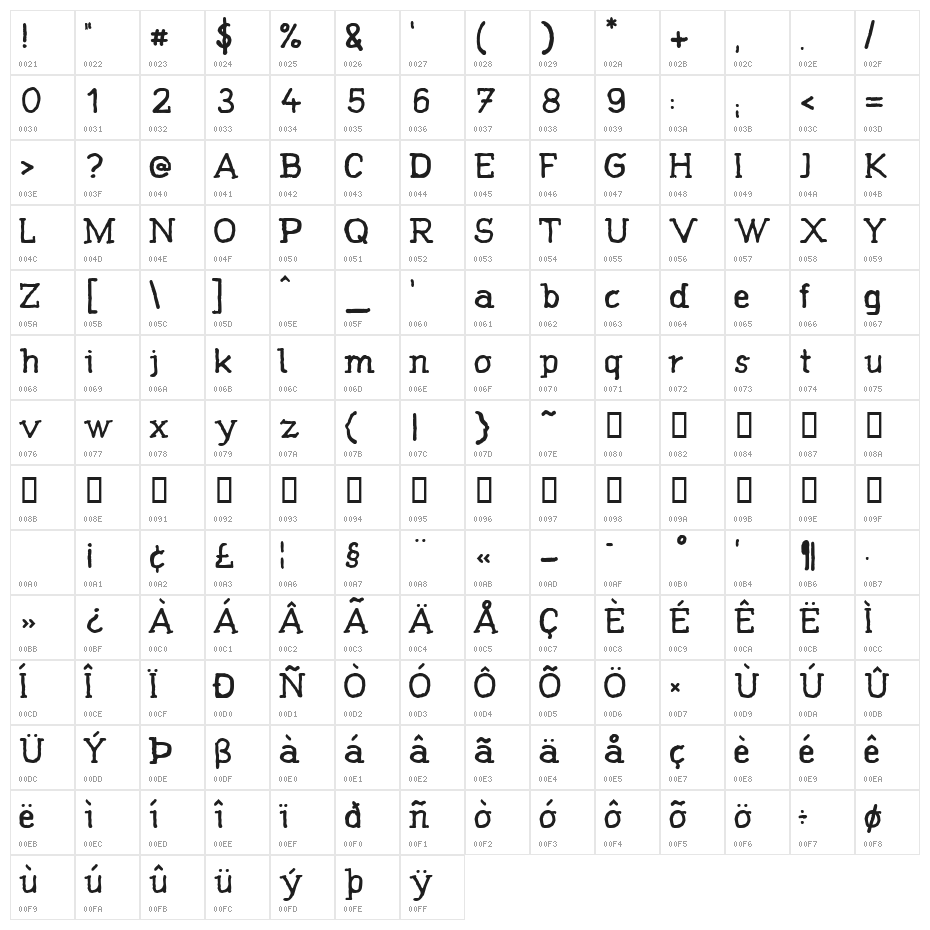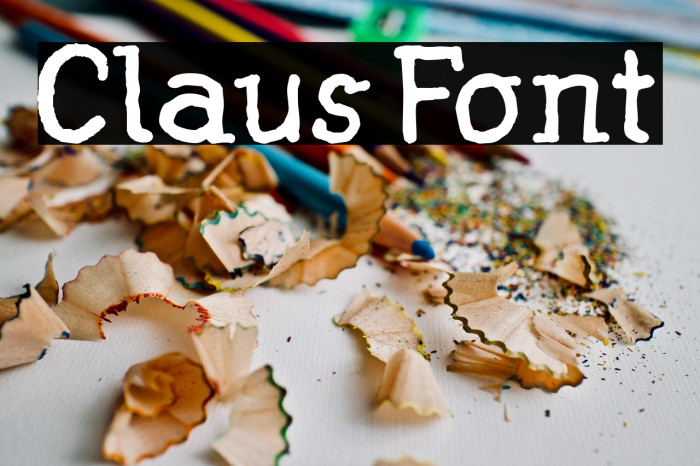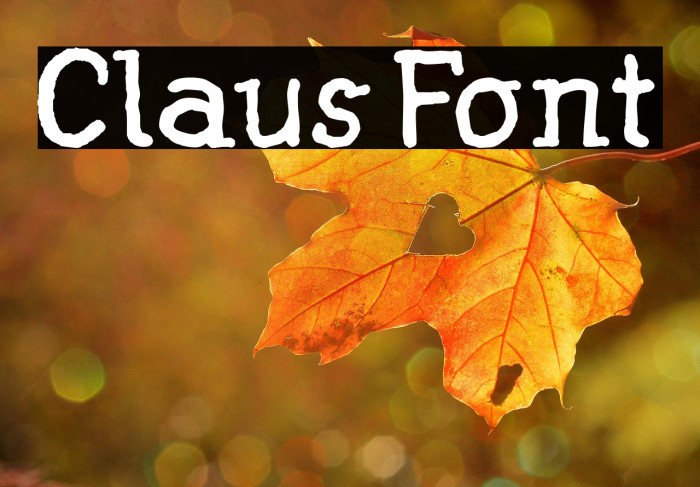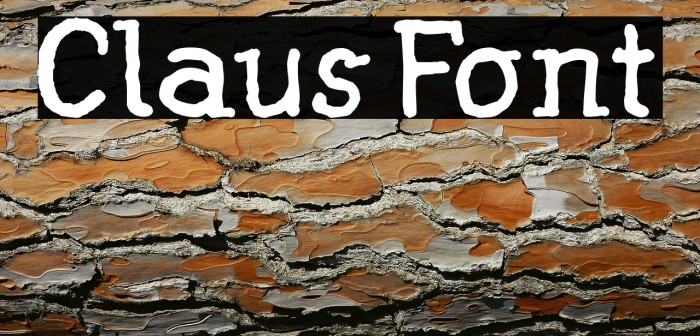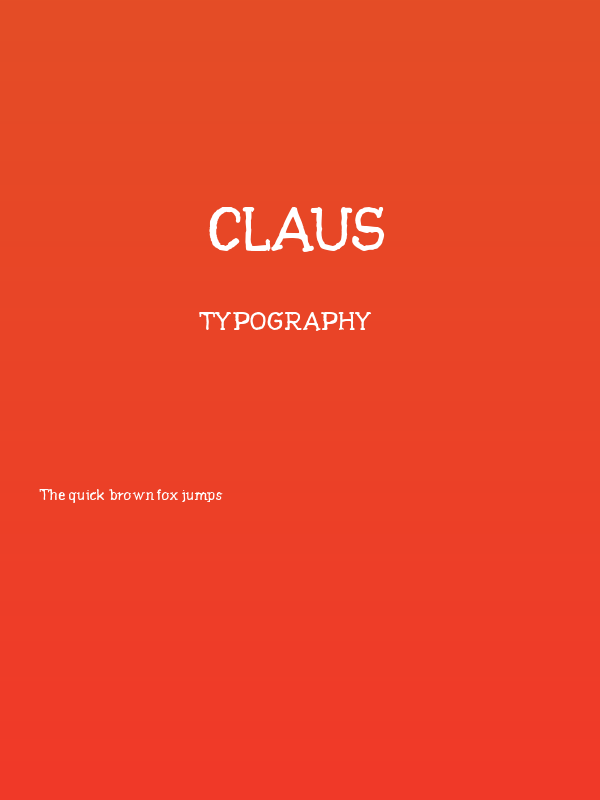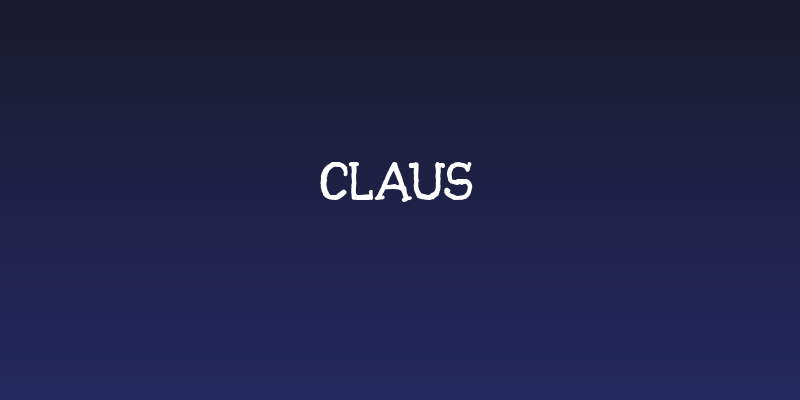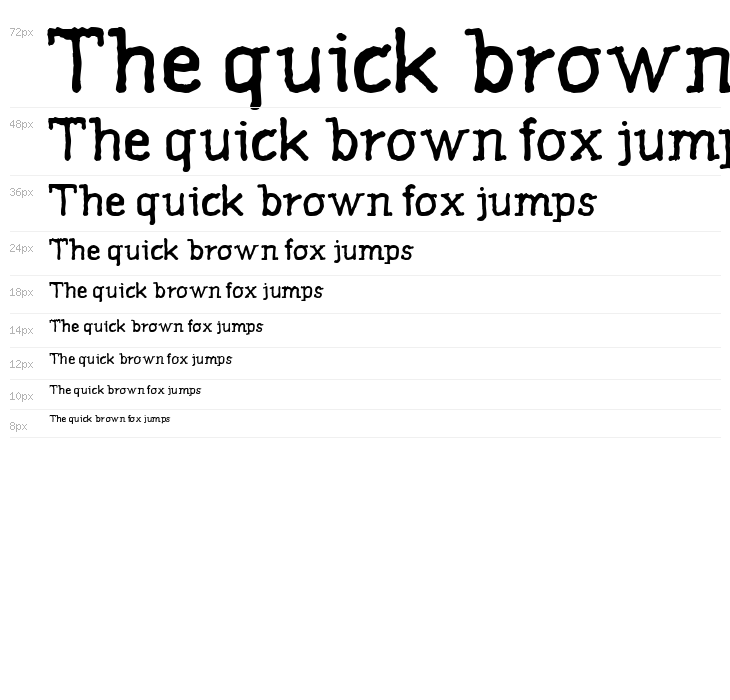
Claus Font
Claus Description
This font features a rugged, hand-drawn style with uneven edges and a playful, organic feel. The uppercase letters are bold and slightly irregular, giving a sense of spontaneity and creativity. The lowercase letters maintain this hand-crafted aesthetic, with some characters having unique quirks that add to the font's charm. Numbers and special characters follow the same design principles, ensuring consistency throughout. The overall appearance is reminiscent of a vintage or rustic theme, making it suitable for projects that require a personal touch or an artistic flair.
| Proposed Projects | Ideal for greeting cards, posters, branding for artisanal products, or any project needing a rustic, handmade look. |